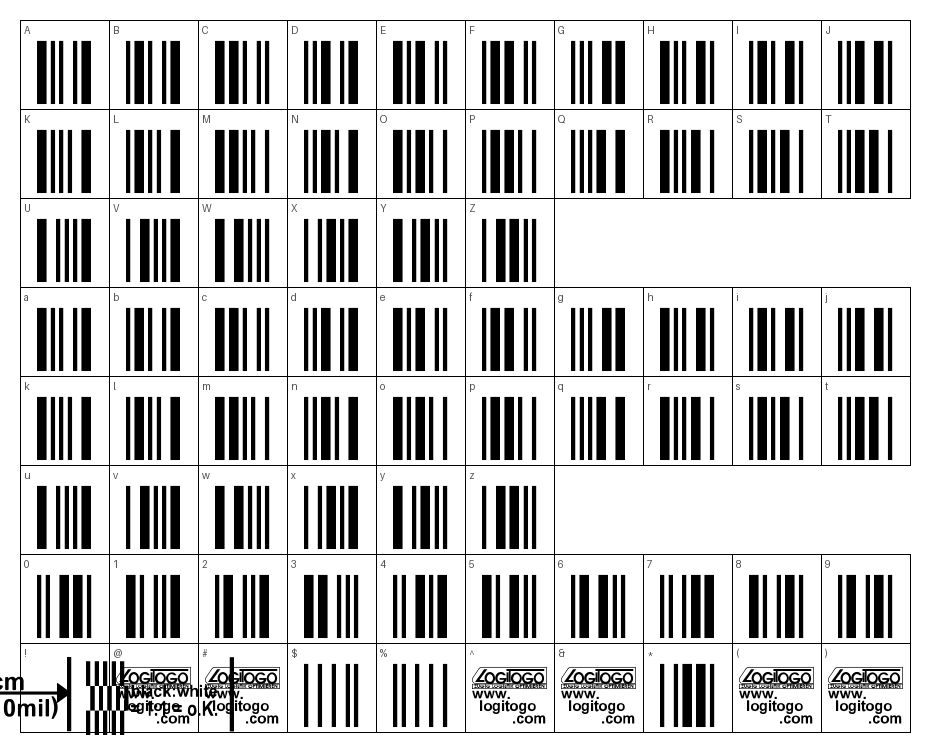
This is the complete Barcode 3of9 (Code 39) TrueType Font.
Characters 0-9, A-Z $%/+-.*[Space]. Install the truetype font into your Os and print quick barcodes. Special features: With code-checker against unreadable codes.Automatic-conversion from lower case letters to capital letters (lower case letters are according to barcode-specification not allowed)
Nome del carattere: Code 39 Logitogo
Nome del designer: Logitogo GmbH